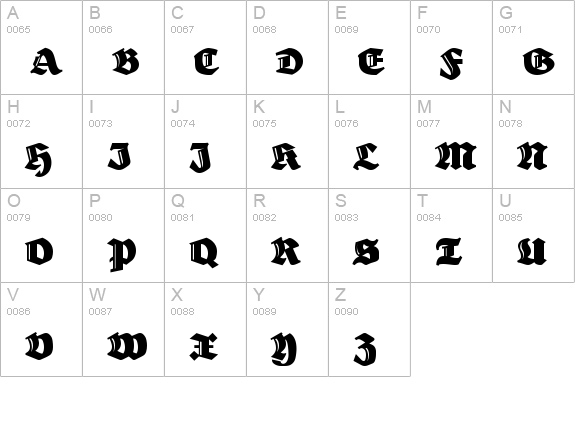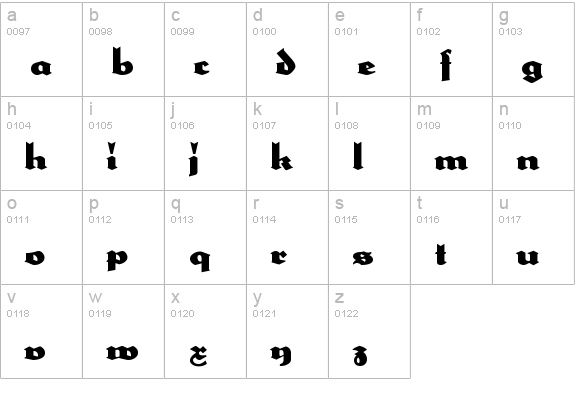
HerzogVonGraf Font Details
HerzogVonGraf font is a stunning display typeface that exudes elegance and sophistication. With its intricate details and ornate flourishes, this font is perfect for adding a touch of luxury to your projects. The timeless design of HerzogVonGraf font makes it versatile for a wide range of applications, from wedding invitations to branding materials. What's even better is that HerzogVonGraf font is available for free download at FontsMarket.com. This means you can easily access this beautiful typeface without any cost, making it a valuable addition to your font collection. Embrace the beauty and craftsmanship of HerzogVonGraf font in your designs today!